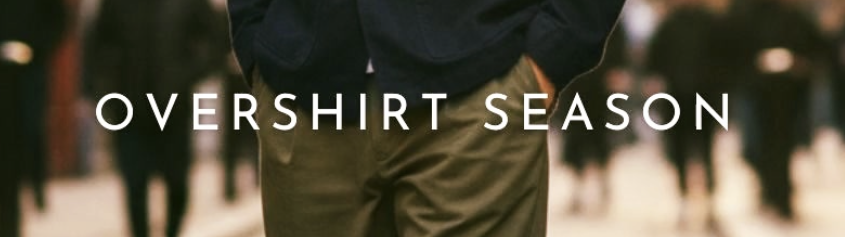
Font Recognition -OVERSHIRT SEASON (Form & Thread)
Can anyone help with identifying this font 'OVERSHIRT SEASON' - WE PARTICULAlrly like the shapes of the capitals 'O, R, A and N' .
Hi Ralf. The reference is from a social media post for a fashion brand. We're looking to create an identity for a hospitality brand using as close a match to this for the identiy and all elements of the brand implmentation.
Hi Ralf. The reference image with type we’re trying to match is from the insta account of the fashion brand ‘Form and Thread’